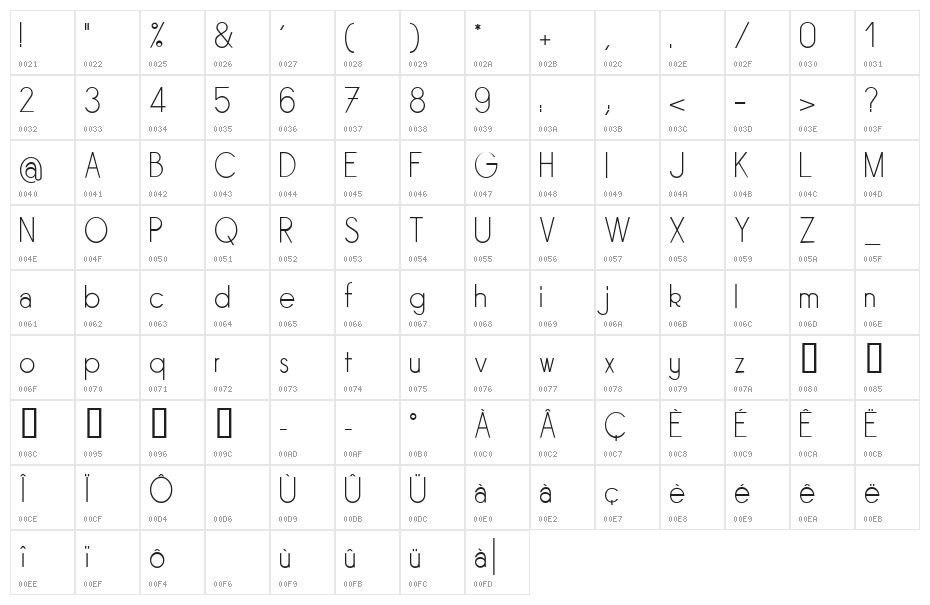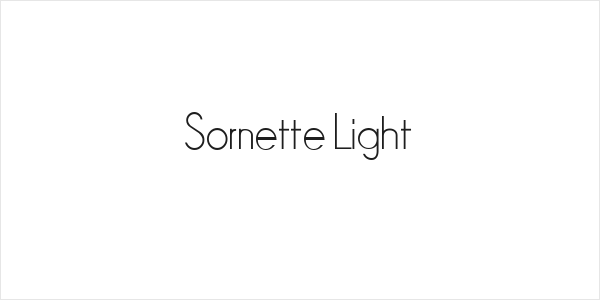
Sornette Light Font
Sornette Light Description
This typeface features a clean and minimalist design with a geometric structure. The characters are evenly spaced, providing a balanced and harmonious appearance. The lines are thin and consistent, offering a sleek and modern aesthetic. The uppercase and lowercase letters maintain a uniform height, contributing to its readability. The numerals and special characters are designed with the same attention to detail, ensuring a cohesive look across all elements. This font is versatile and can be used in various design contexts where clarity and simplicity are desired.
| Proposed Projects | Ideal for modern branding, editorial design, digital interfaces, and minimalist posters. |